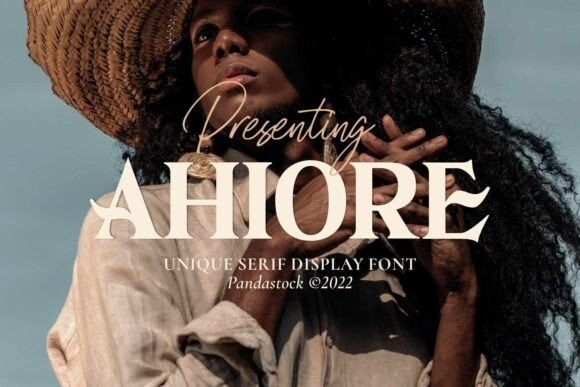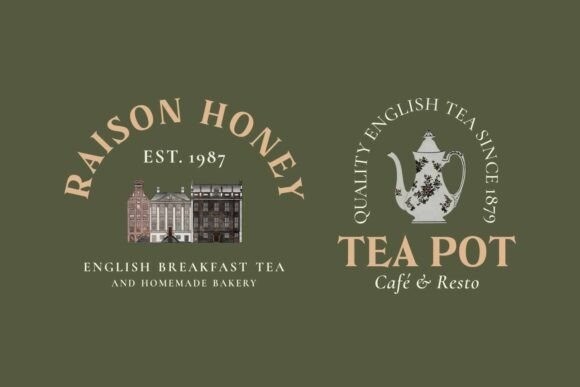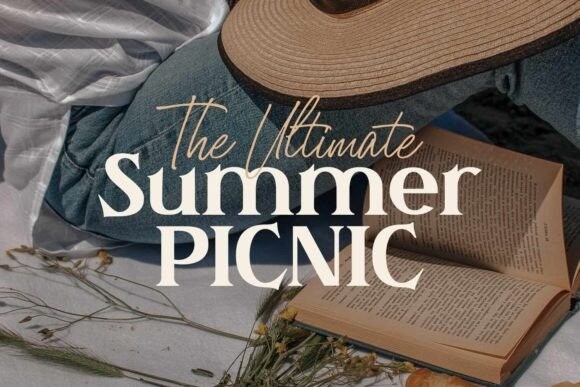
Ahiore Font
Ahiore is a beautiful serif font featuring smooth curves and a visual style that embodies charm and elegance in every letter, making your work look stunning and attractive.
A versatile font that works in both large and small sizes, suitable for a wide variety of projects such as a display for headings, logos, invitations, branding, magazine, photography, card, product packaging, product mockup, mugs, posters, labels, signatures, editorials, art deco, any type of advertising purpose.